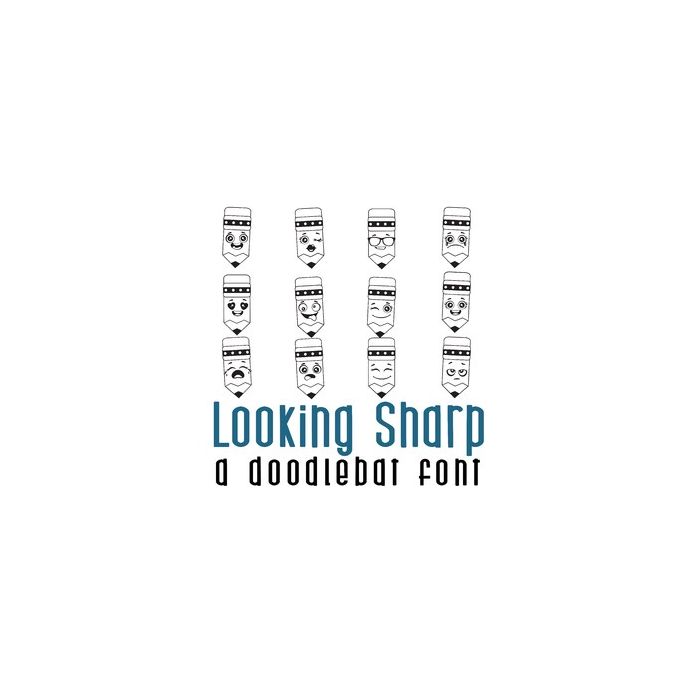
This adorable doodlebat font features 26 emoji pencils. Perfect for classrooms, students, crafts, gifts, cardmaking, scrapbook pages, graduation and more!